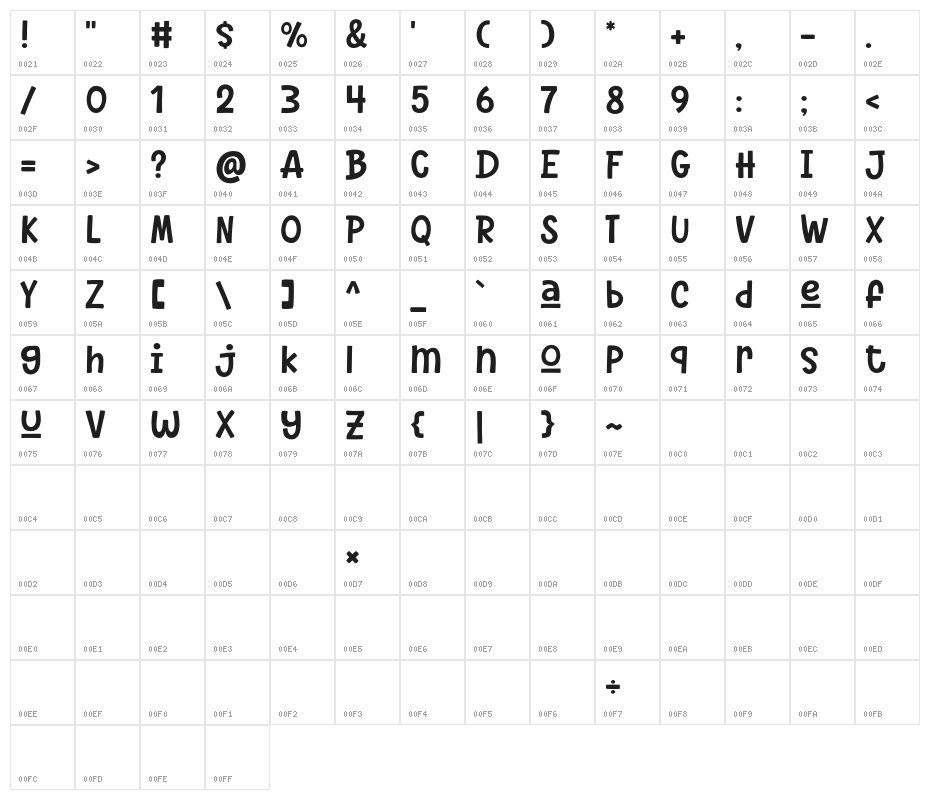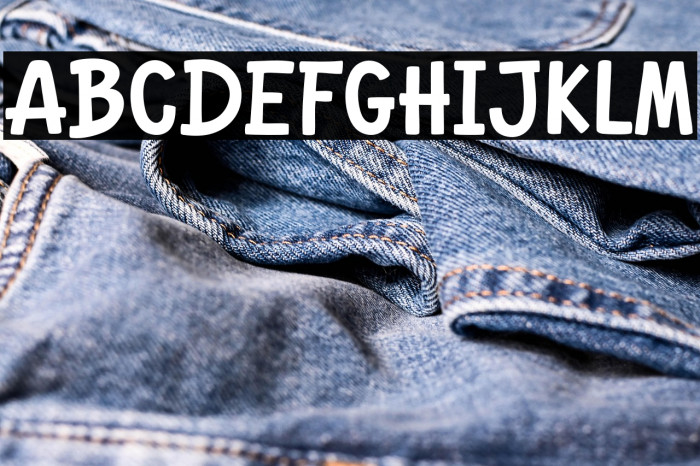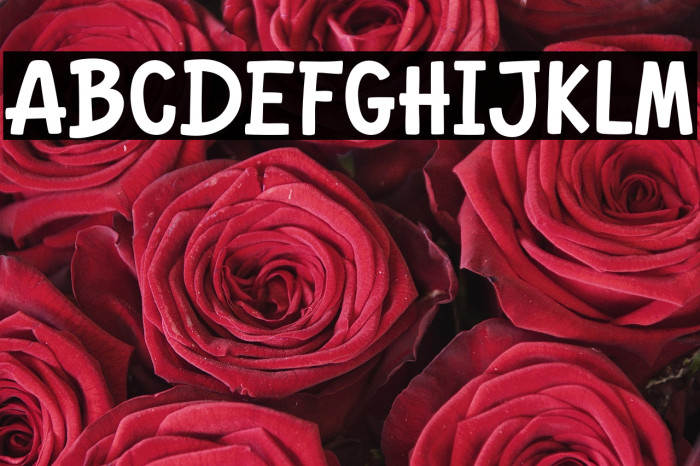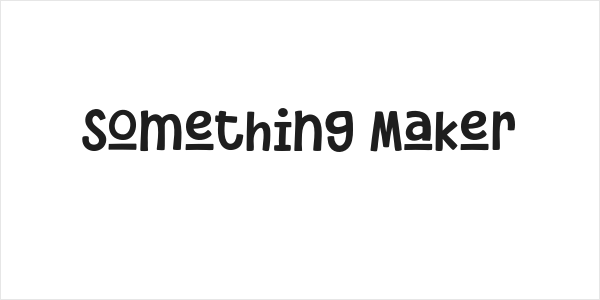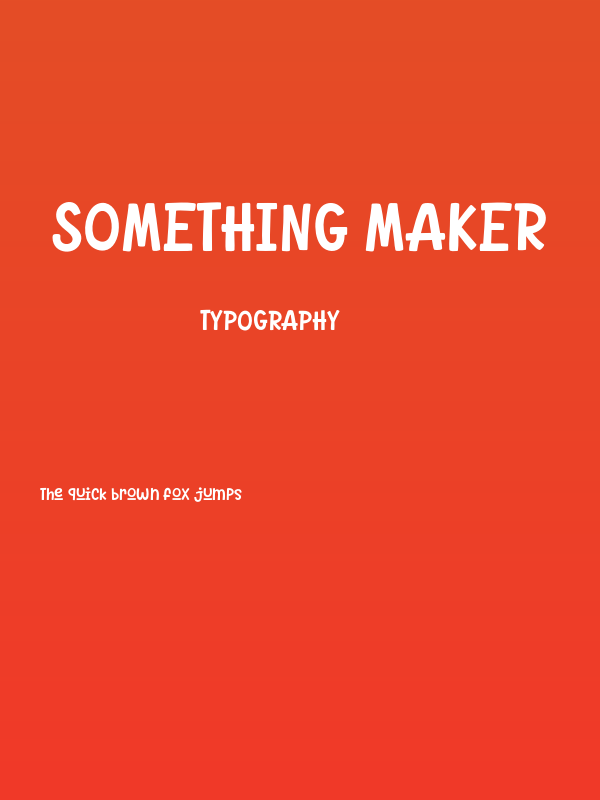
Something Maker Font
| Stil general | Playful, Whimsical |
| Proiecte propuse | Ideal for children's books, playful branding, posters, and creative invitations. |